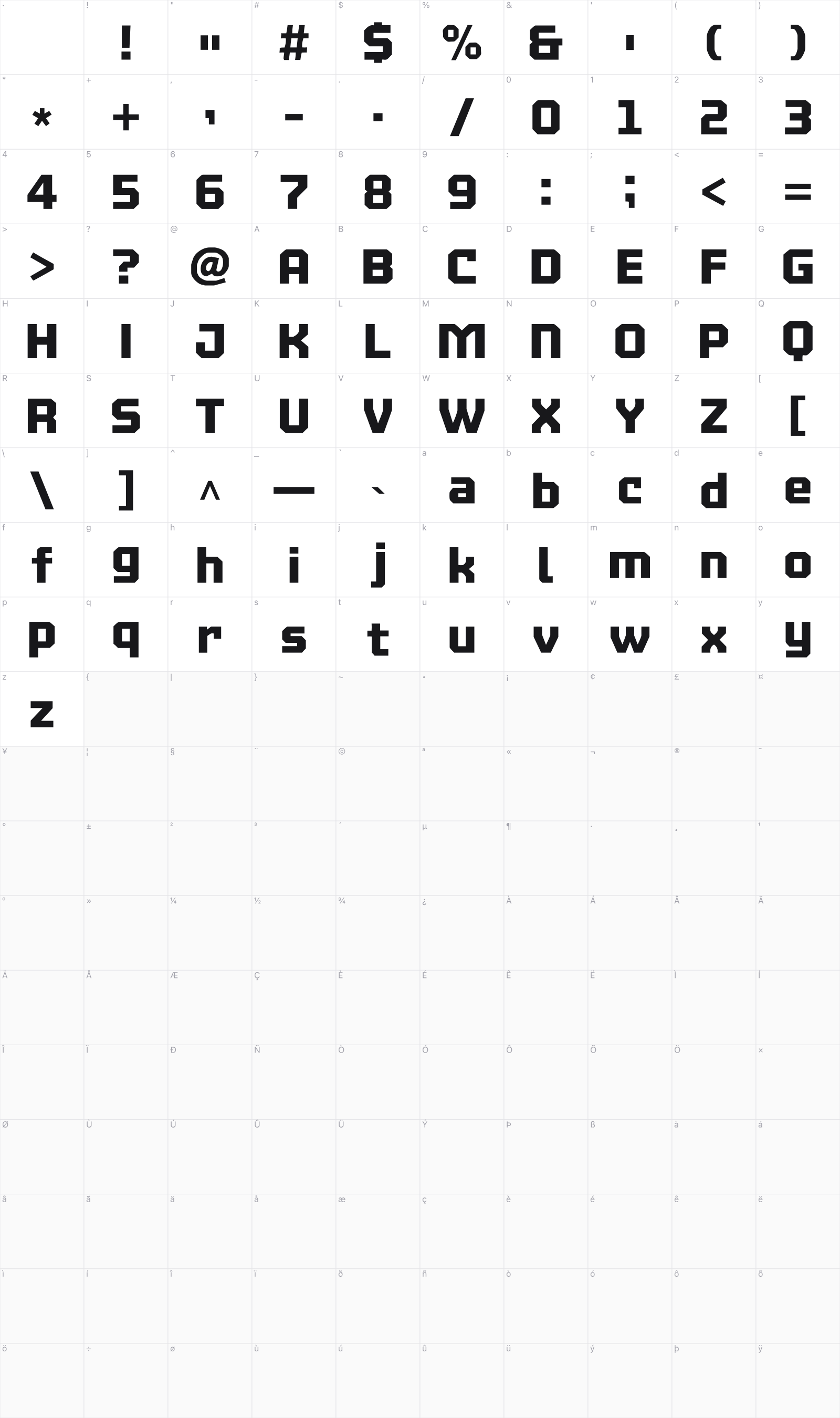
MTV2C
MTV2C is a heavy, condensed geometric display face from Davyboy723 with dense, blocky uppercase letterforms that stack tight and hit hard. The bold weight and rigid proportions give it an almost architectural solidity, making it a strong choice for headlines, posters, and logo work where you need something that takes up space with purpose.